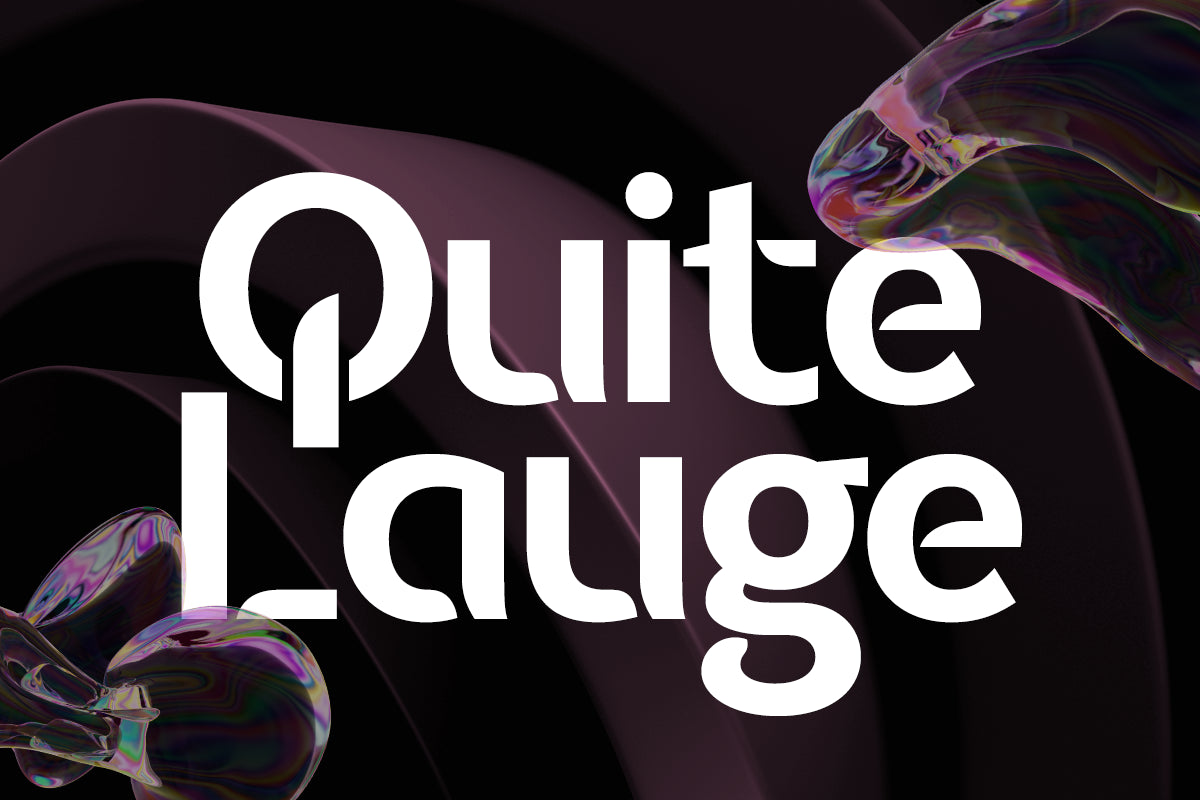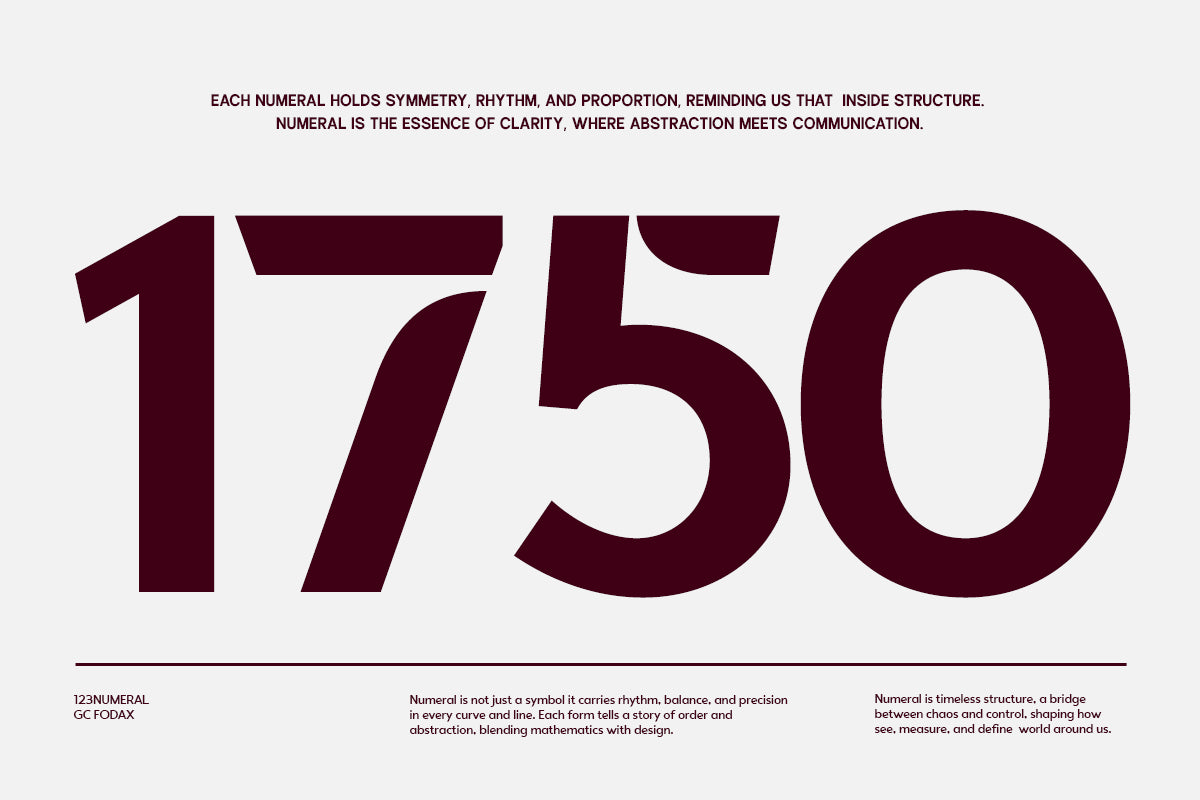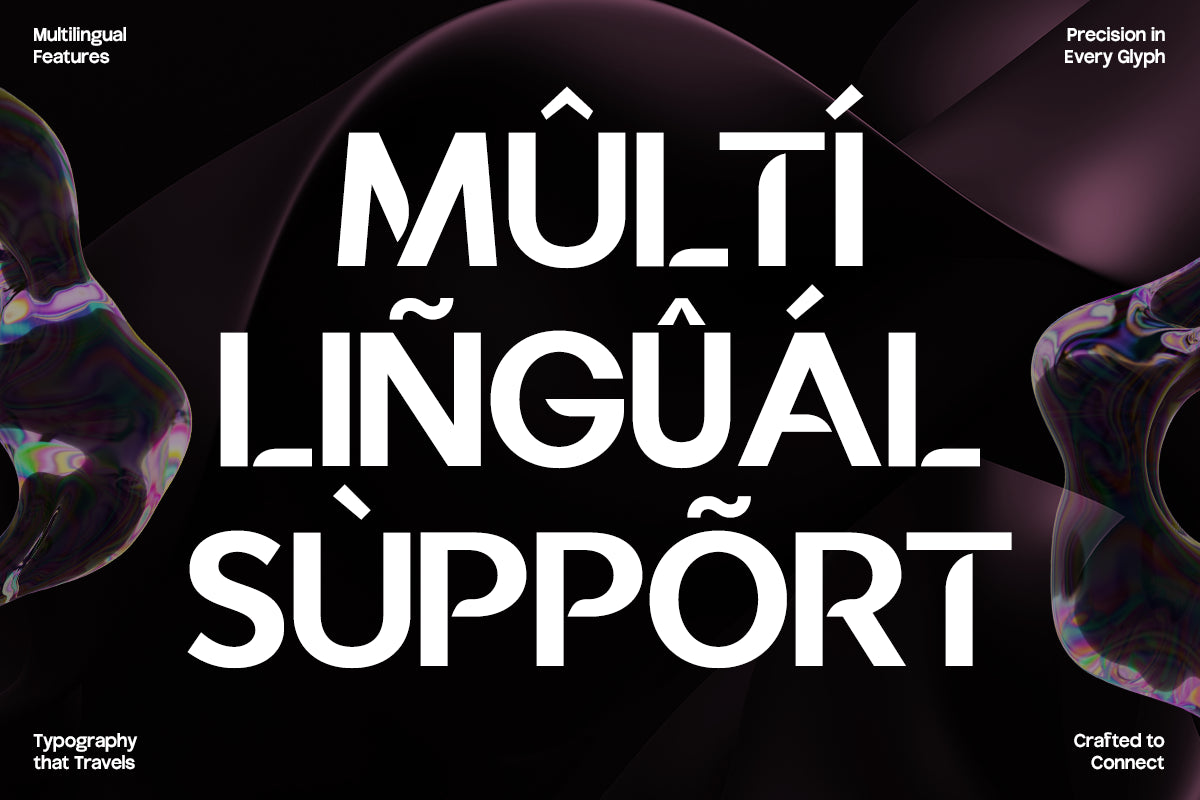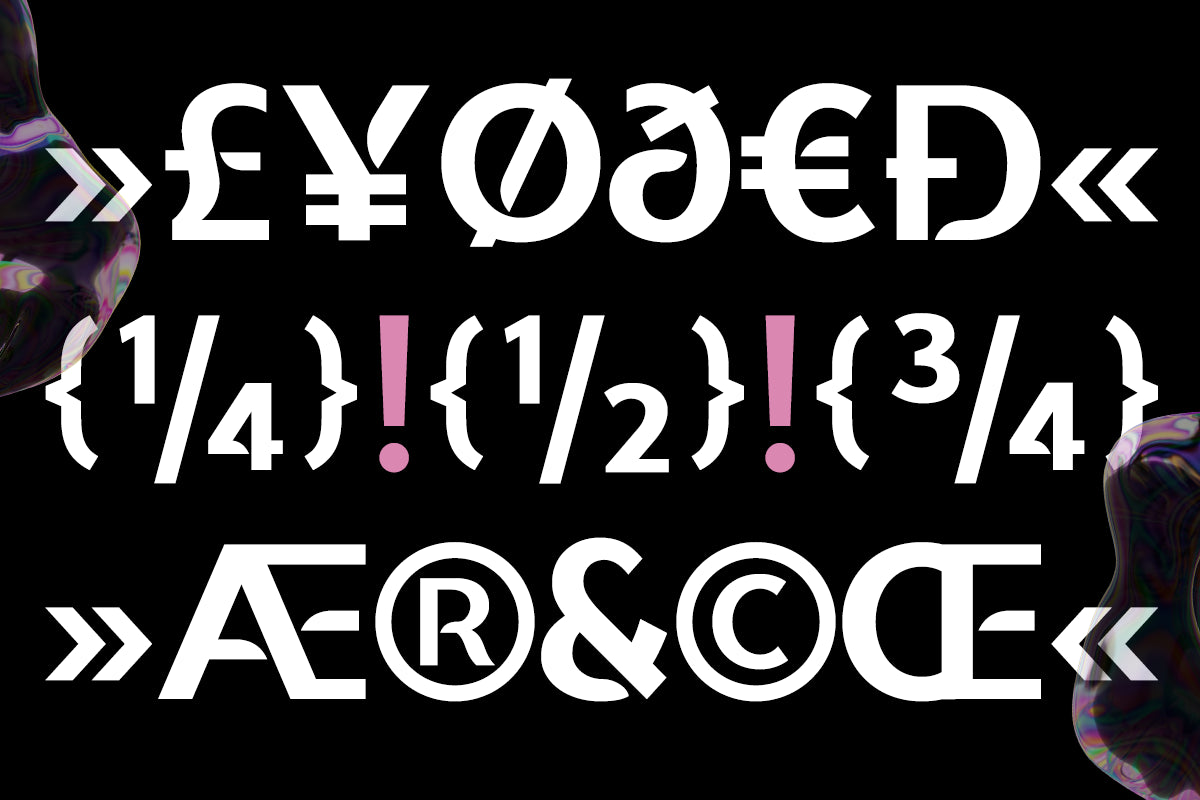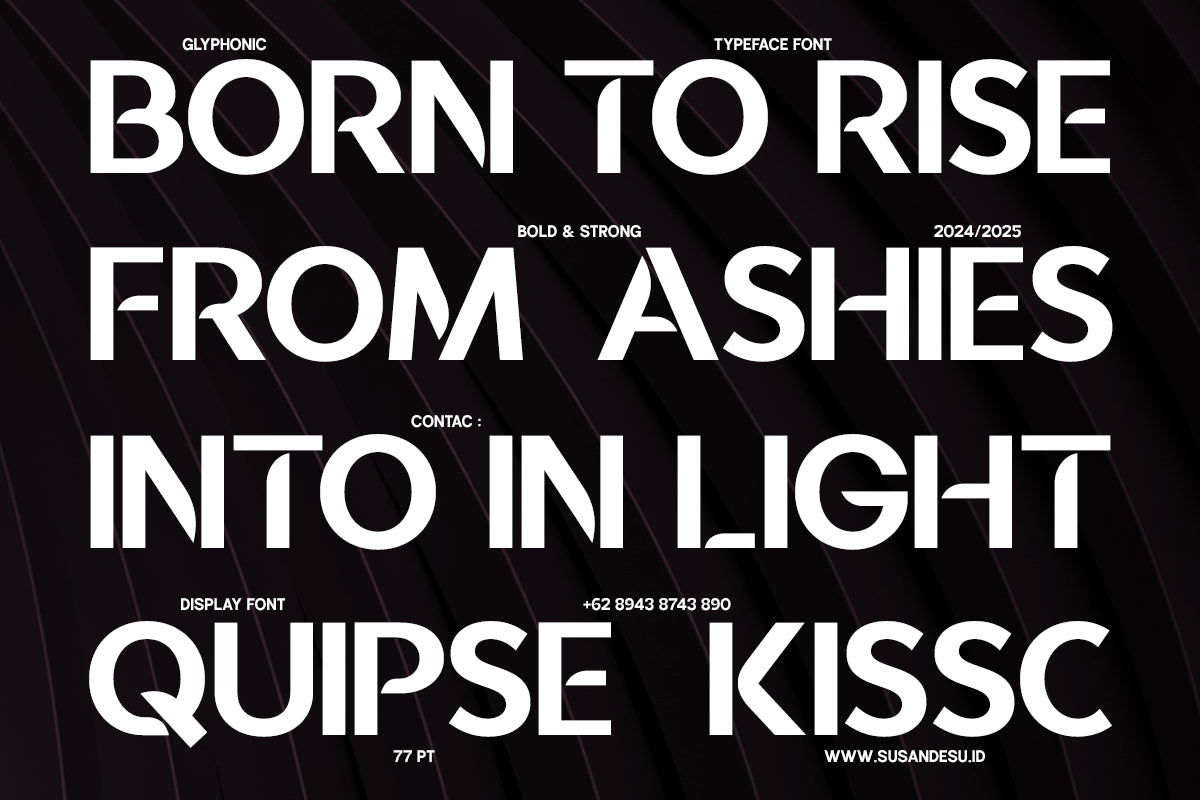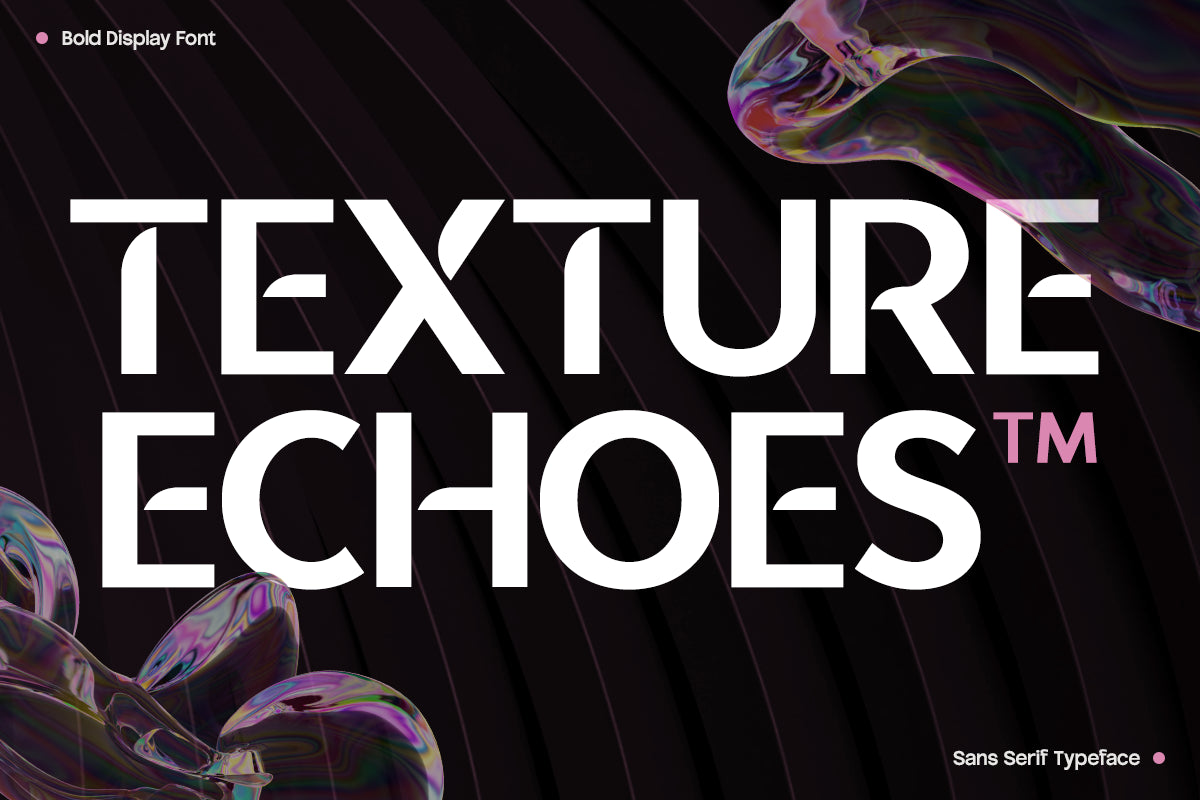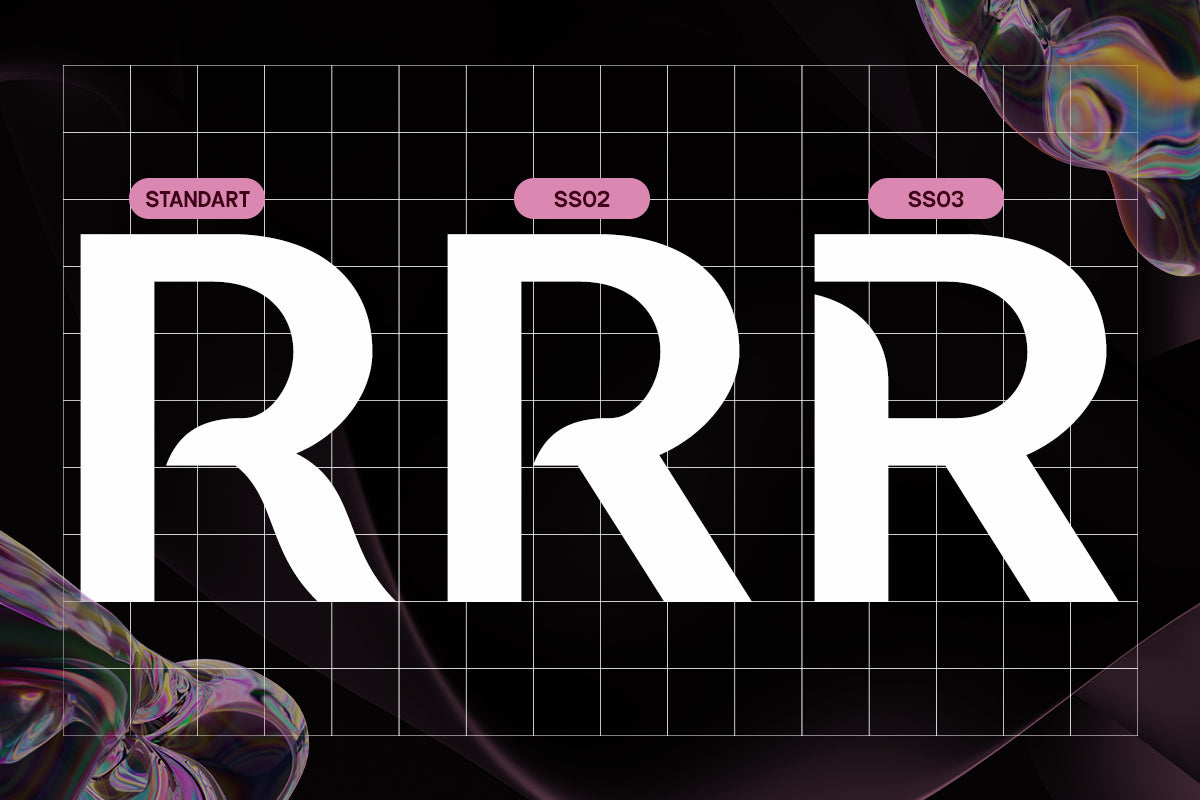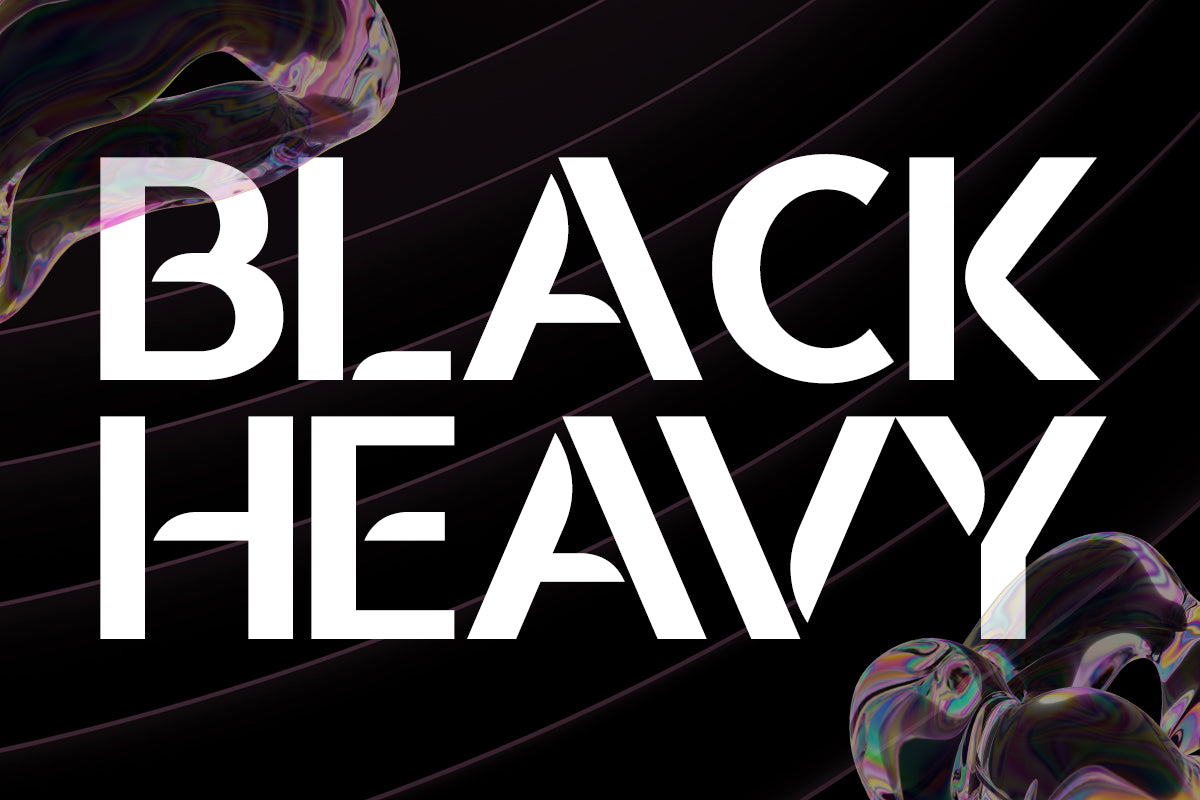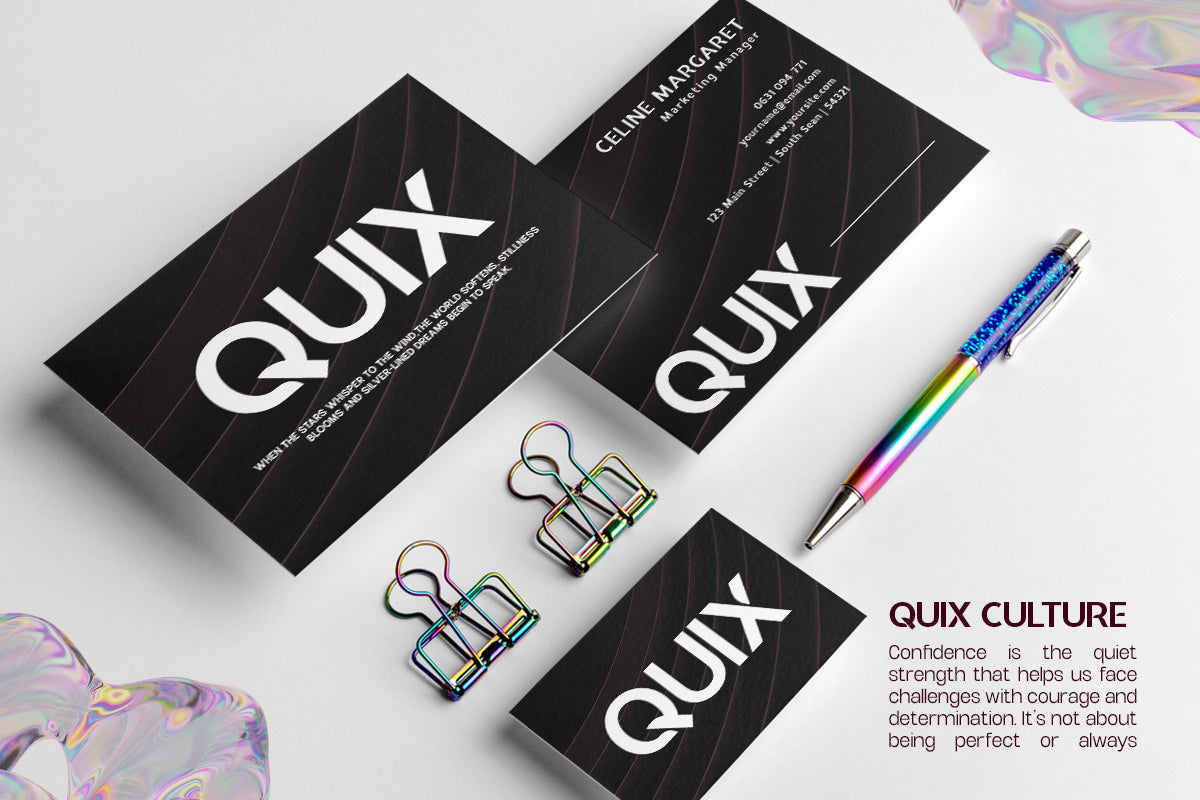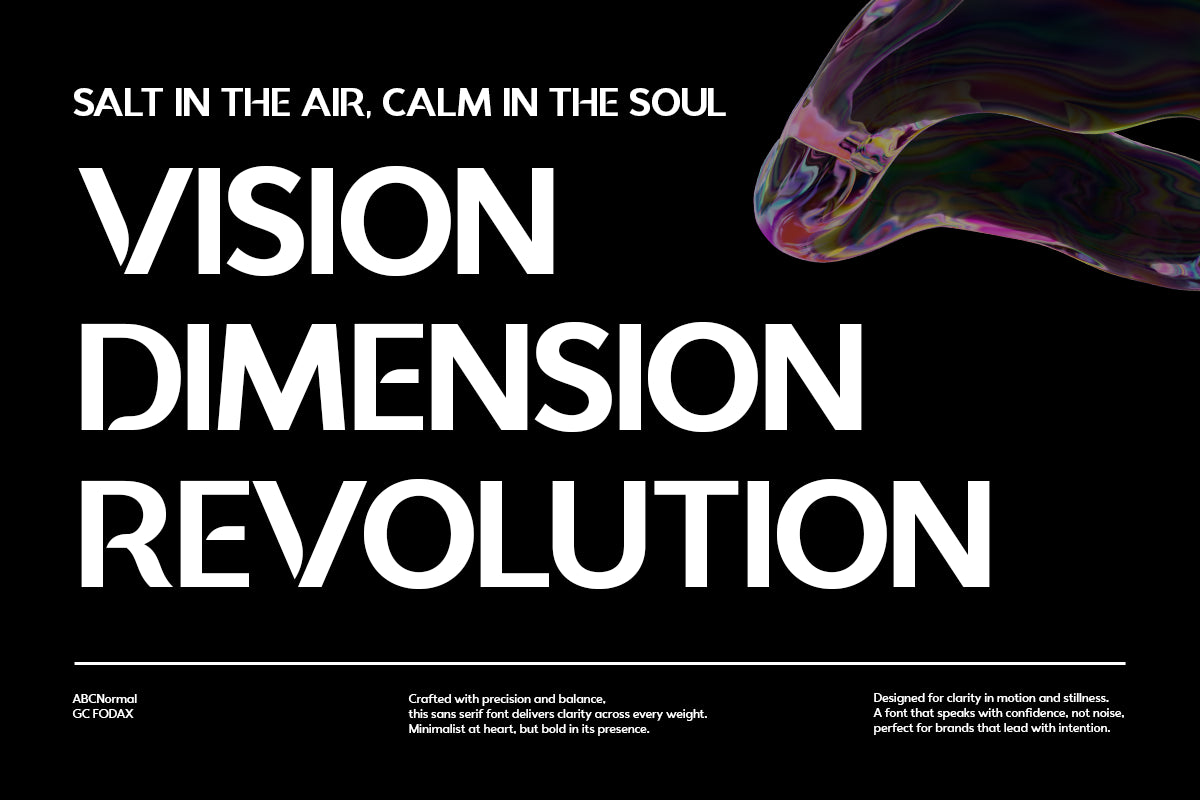
GC Fodax — Bold Simplicity Font
GC Fodax is a bold sans serif typeface designed for clarity and modern impact, featuring clean geometric forms and assertive strokes. It includes uppercase and lowercase letters, numbers, punctuation, and supports over 170 languages, available in OTF, TTF, and webfont formats.